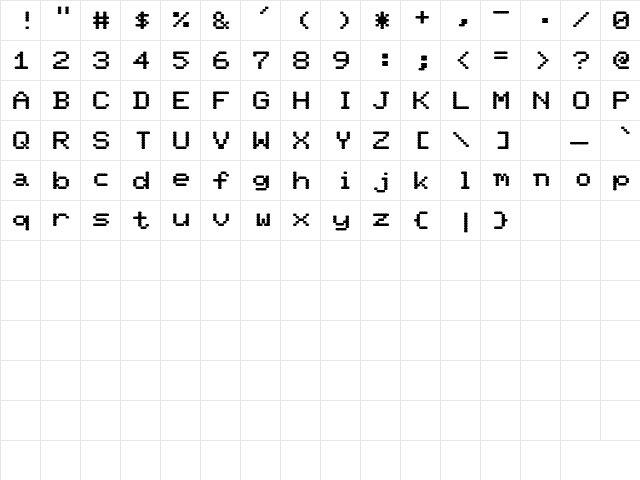
Pixel_Screen_Font-Light Bold Bold
Design Context for Pixel_Screen_Font-Light Bold Typeface
Pixel_Screen_Font-Light Bold is rooted in pixel-grid construction, making it a natural fit for game UI, retro computing aesthetics, and digital nostalgia projects.
A natural choice for retro game titles, chiptune music branding, 8-bit UI, and digital nostalgia projects.
Pro Tip: Pair Pixel_Screen_Font-Light Bold with flat colour palettes and simple geometric UI elements to reinforce its digital aesthetic.